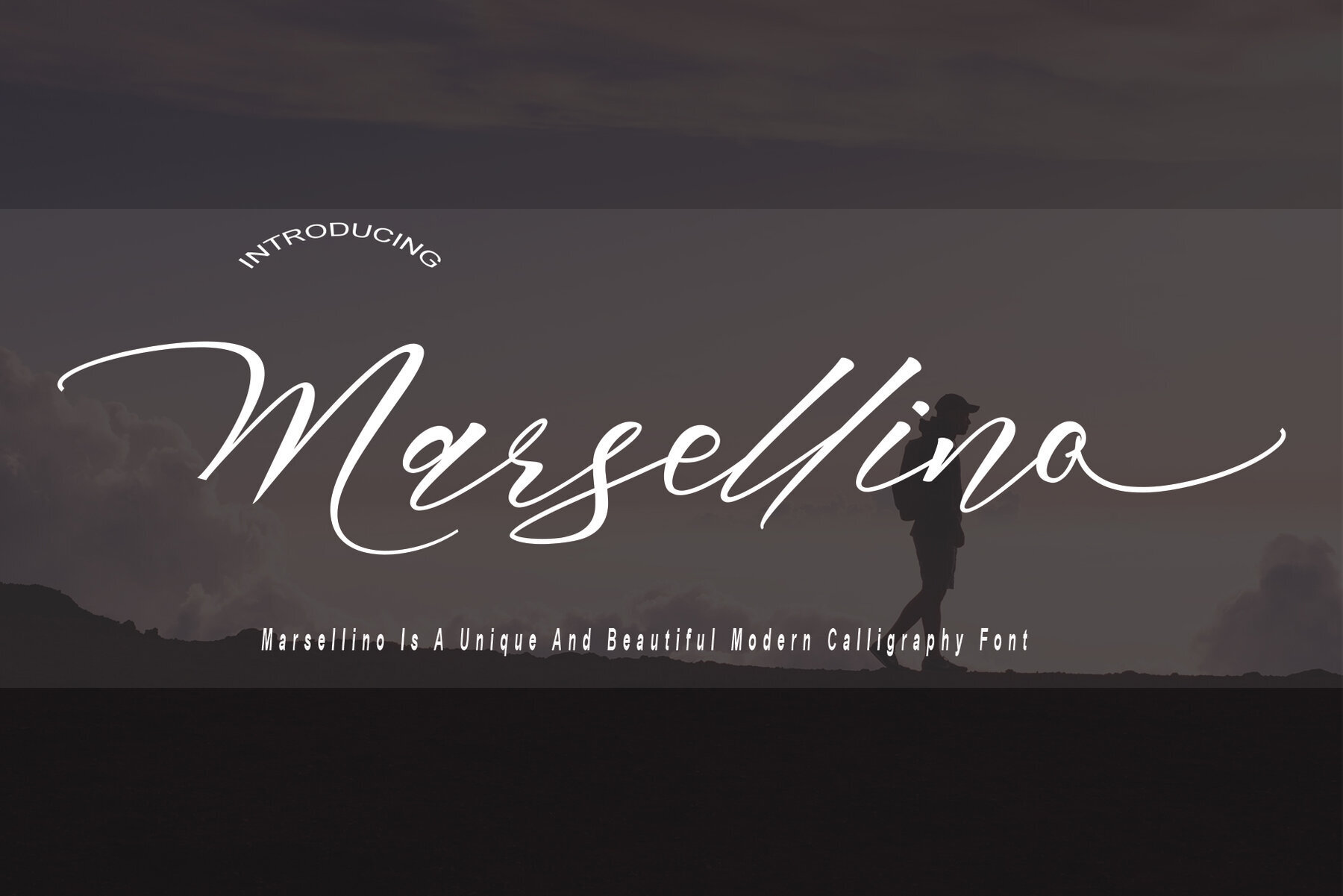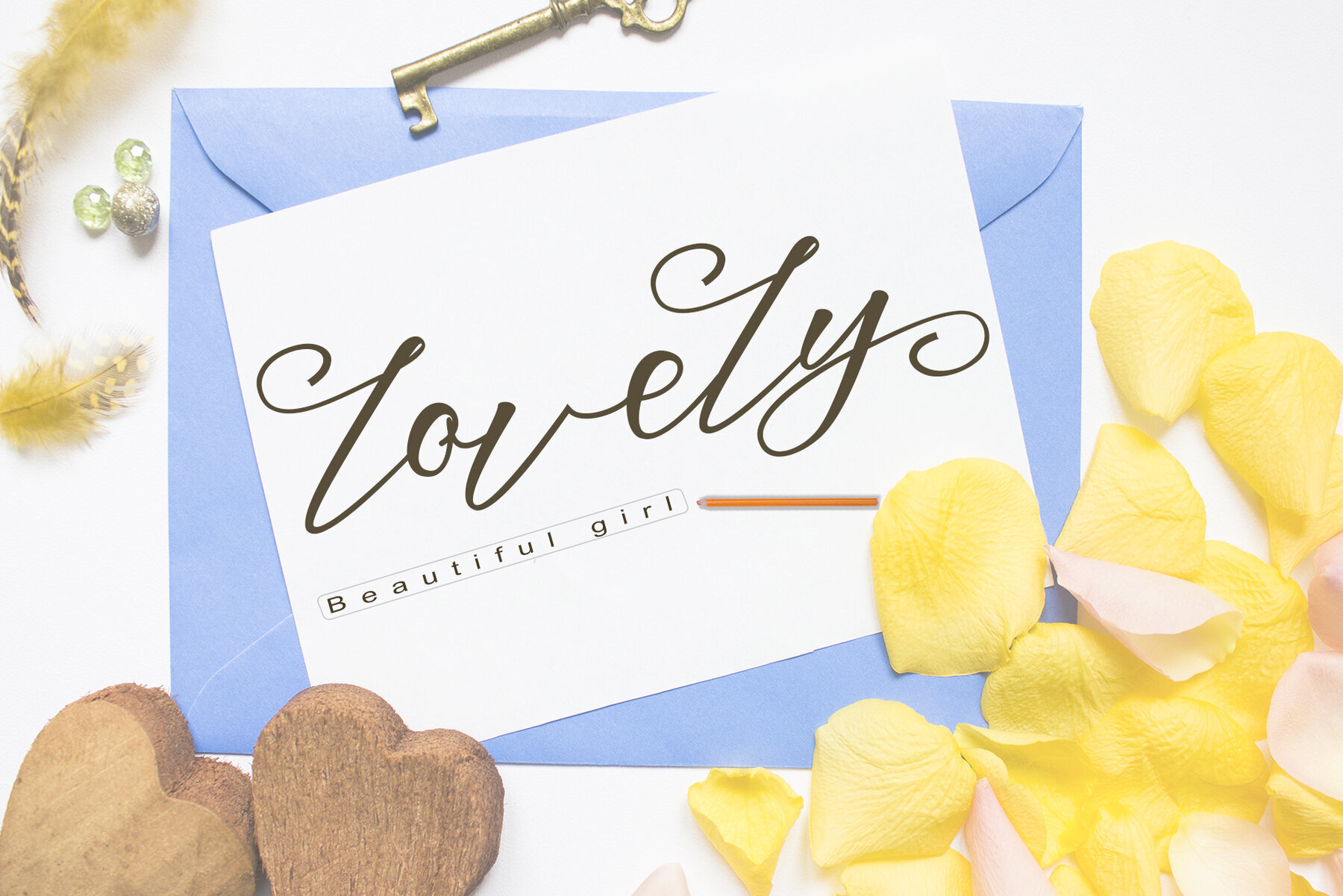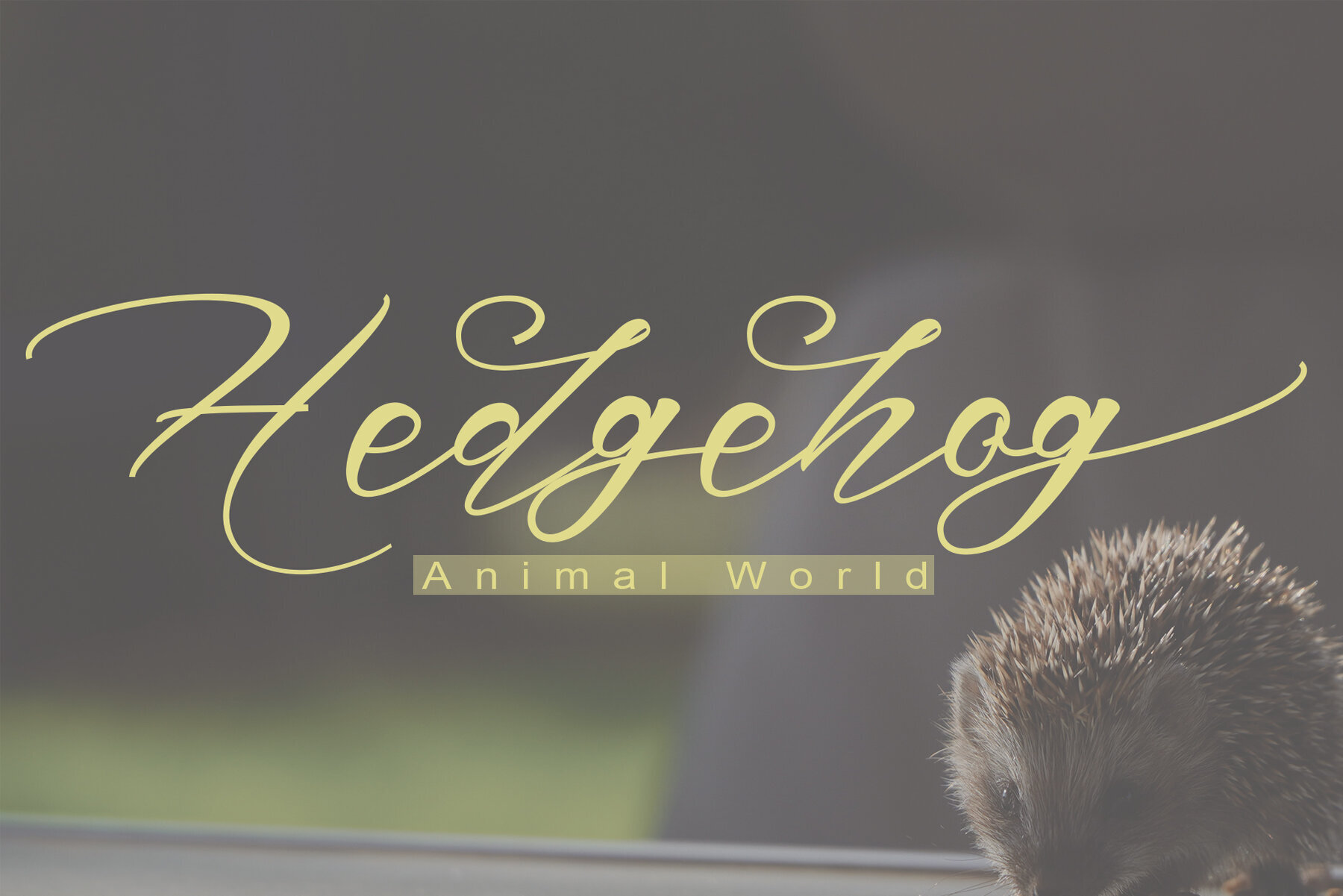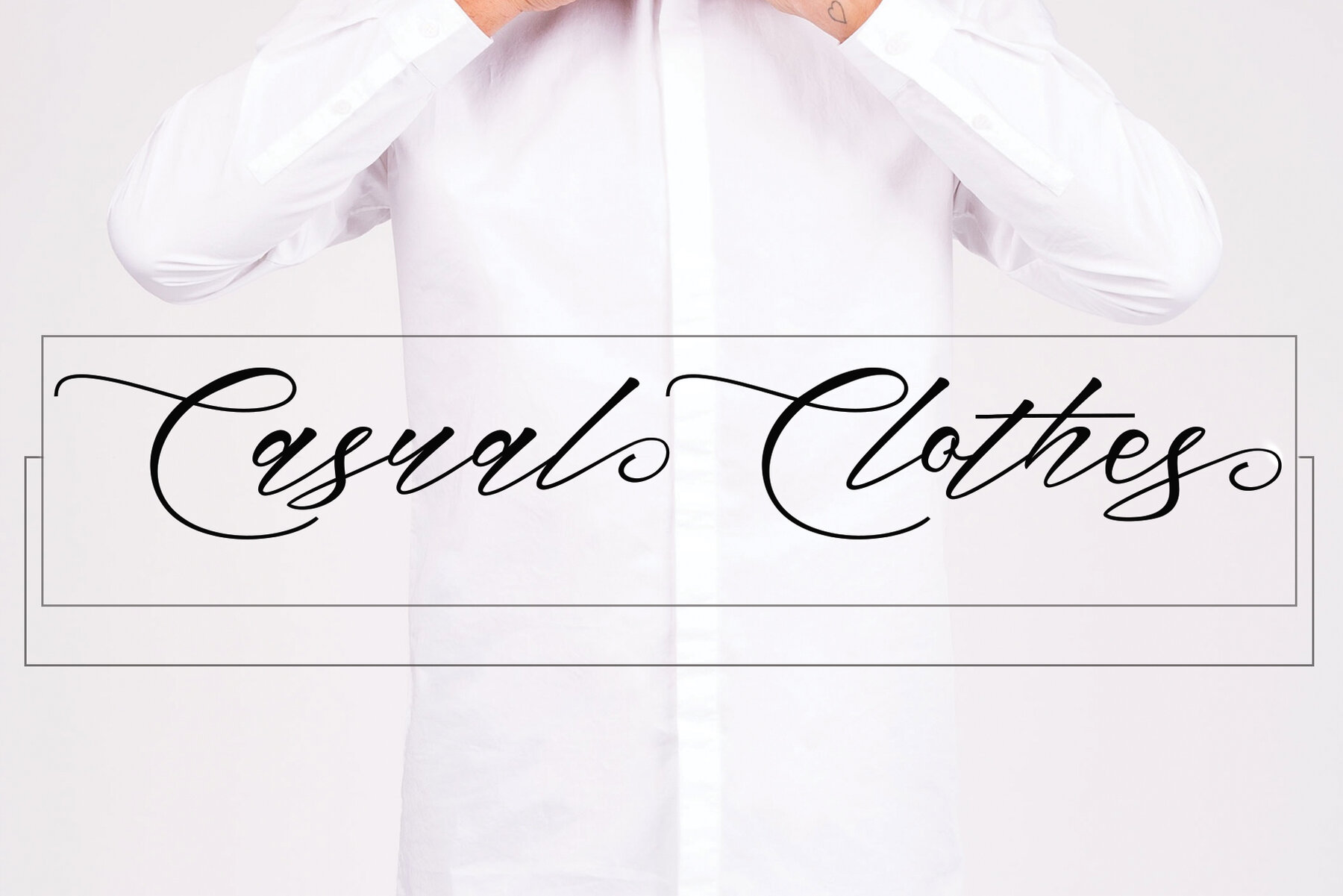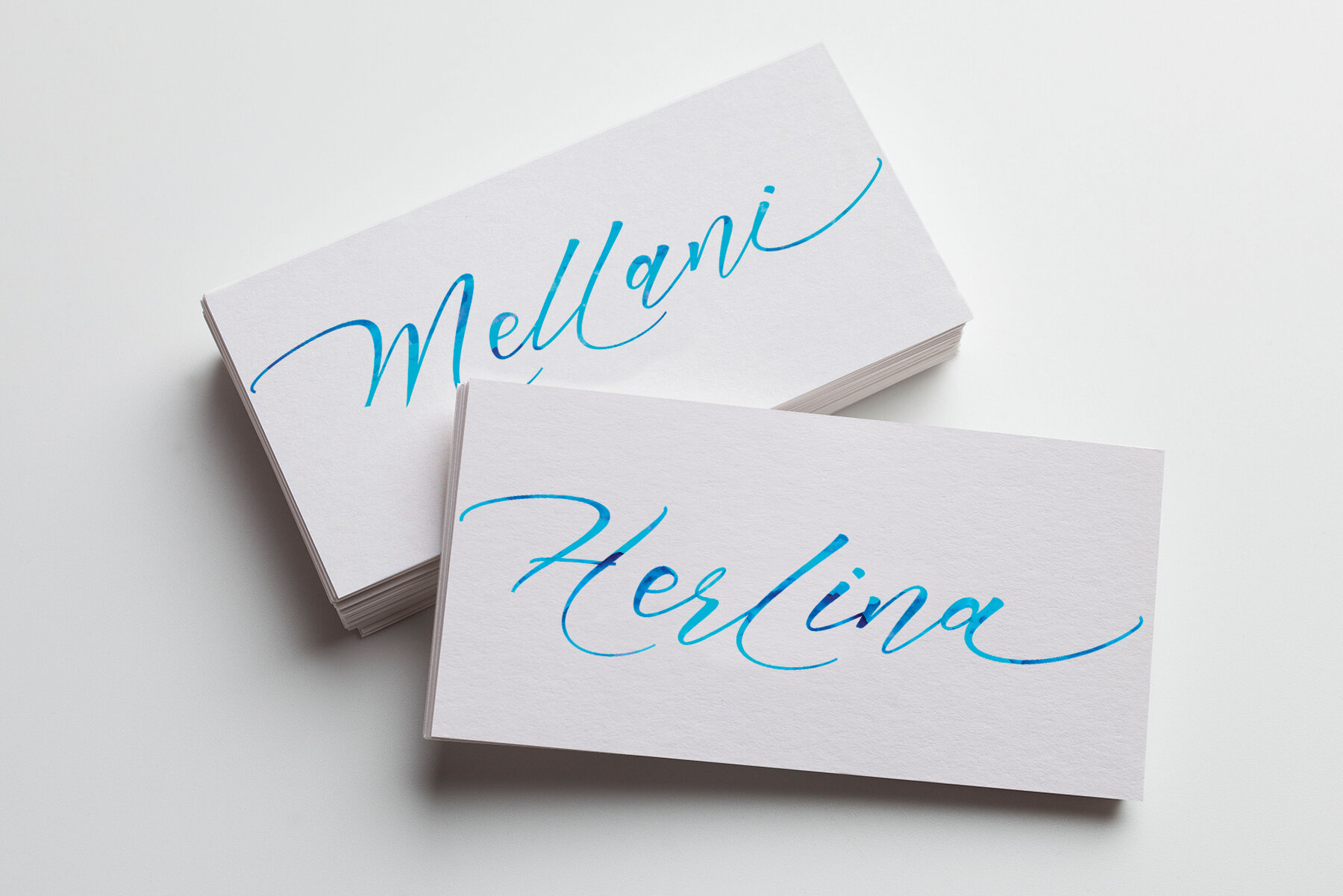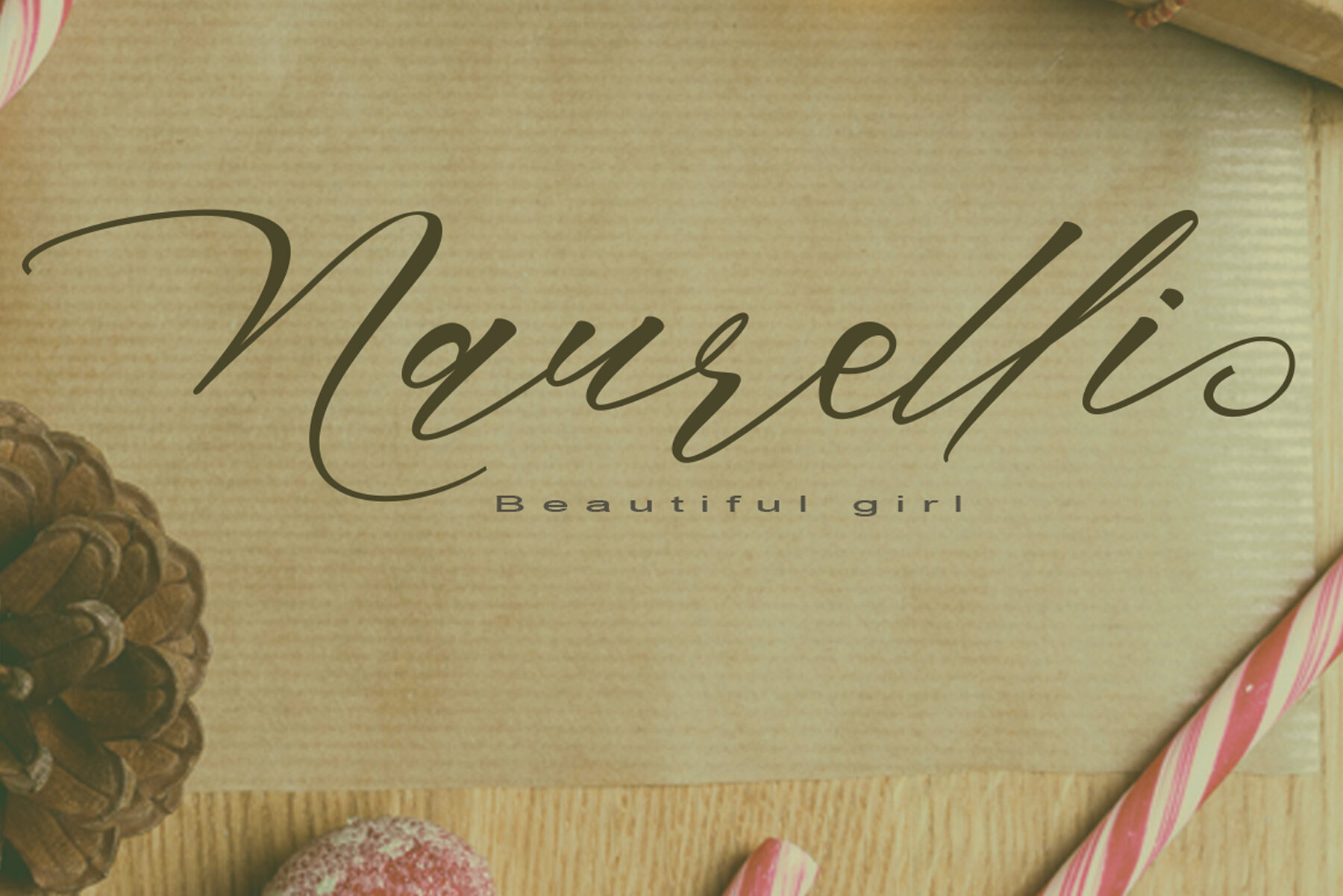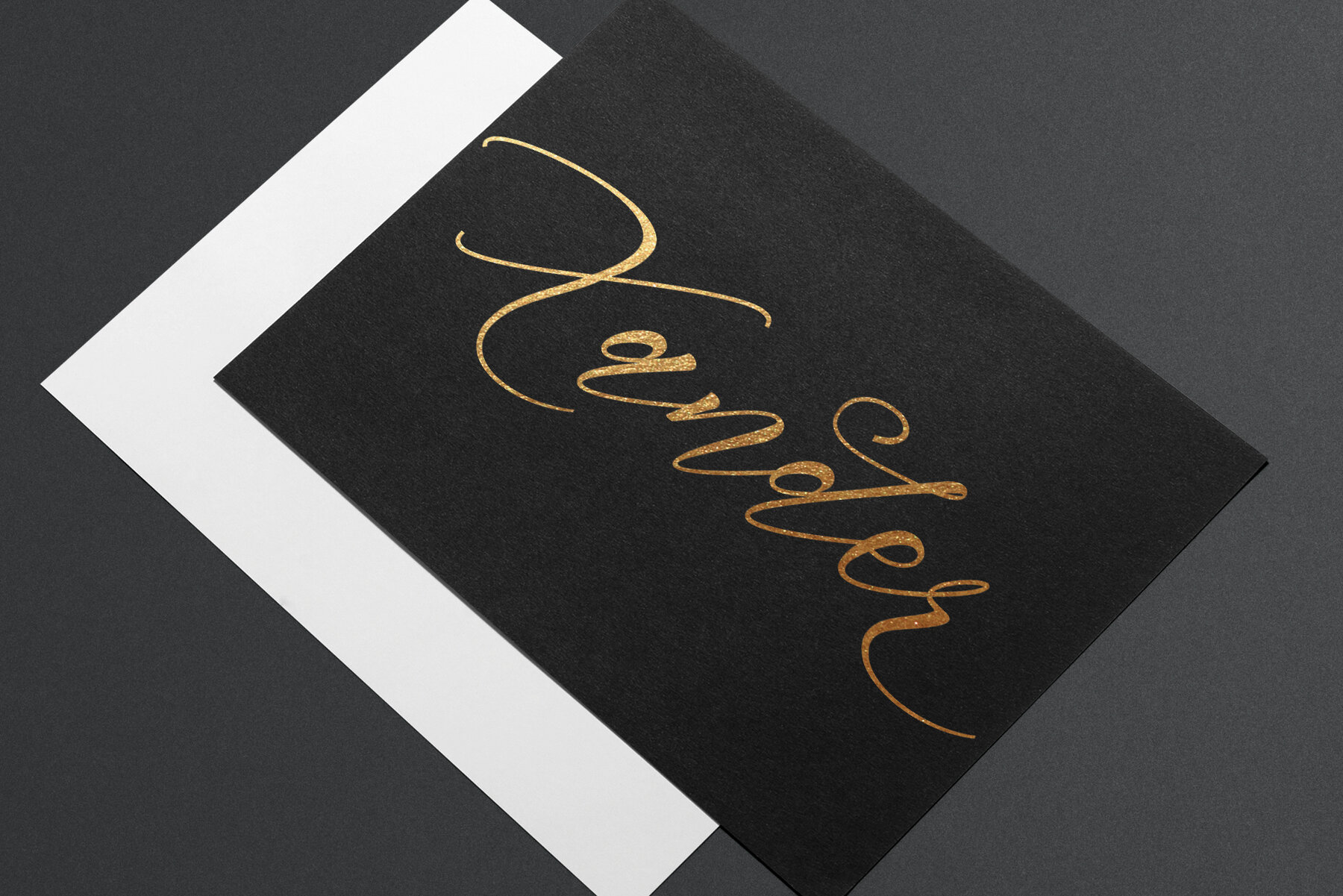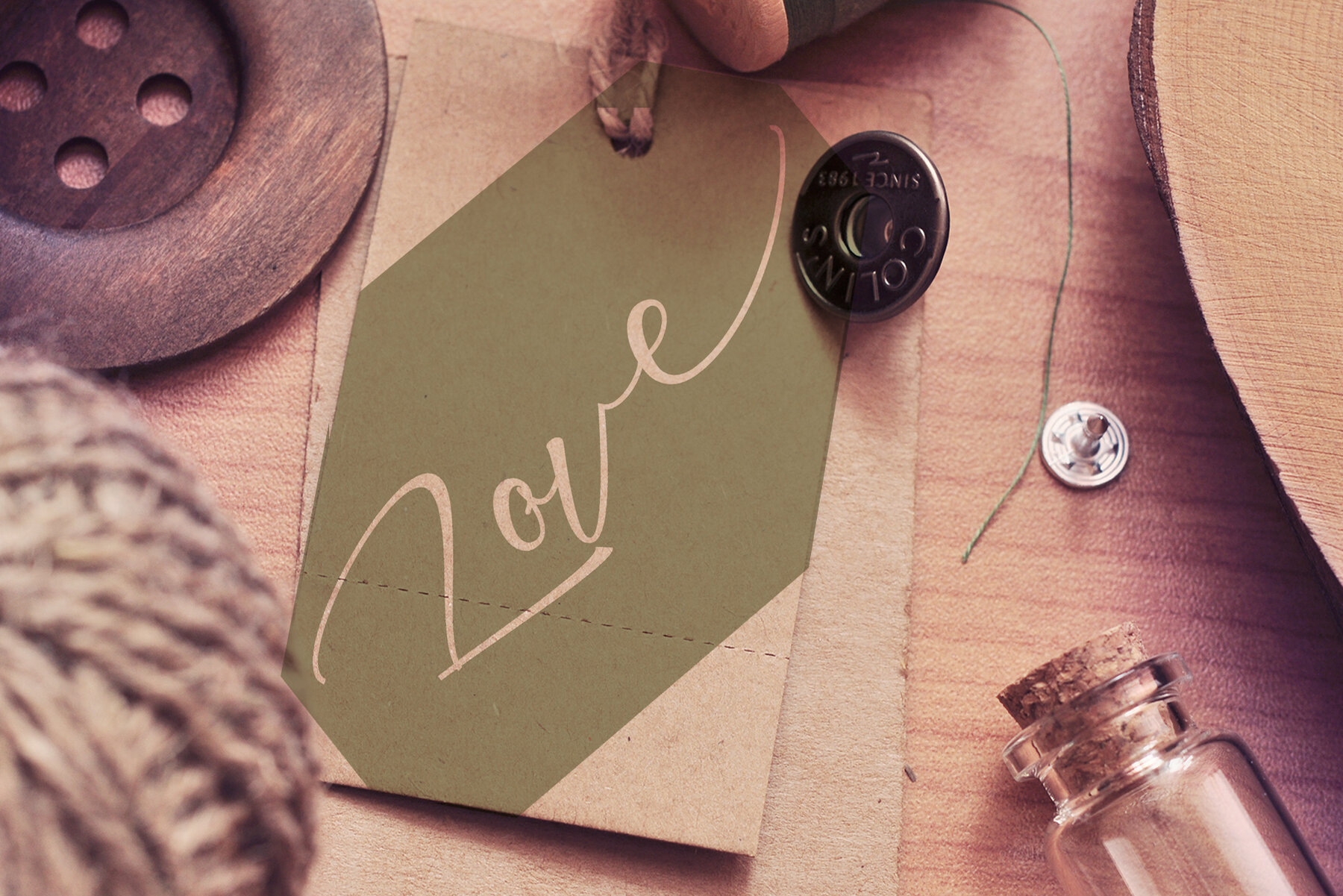
Marsellino Font
Marsellino Regular
Marsellino brings a graceful touch to any creative endeavor. This modern calligraphy font is ideal for diverse applications such as wedding designs, personal branding, logos, social media content, advertisements, product packaging, and invitations. Its handcrafted feel lends an authentic touch to projects requiring a personal essence. Marsellino's compatibility extends across popular design software, including Adobe Photoshop, Illustrator, InDesign, CorelDraw, and Microsoft Office. To make the most of its OpenType features, ensure your software supports these capabilities. For accessing alternate characters: With its dynamic strokes reminiscent of a dancer’s movements, Marsellino offers a distinctive style that's perfect for modern design projects.Marsellino: A Signature Modern Calligraphy Font